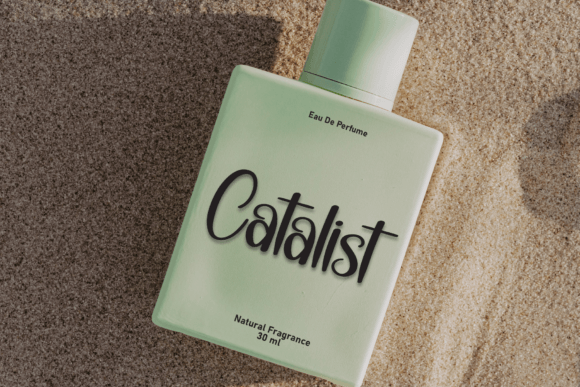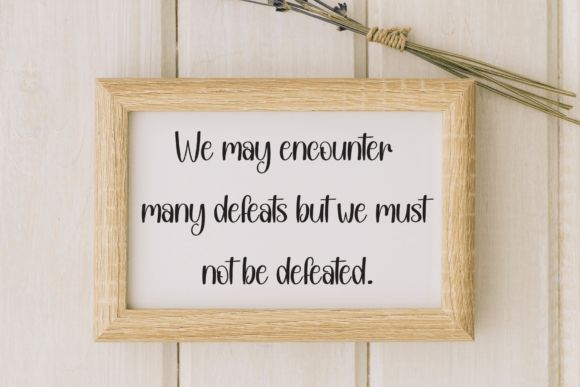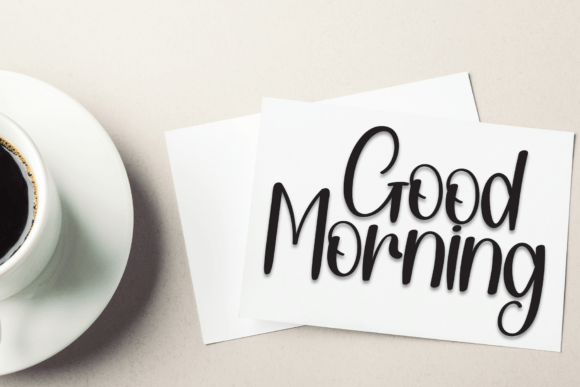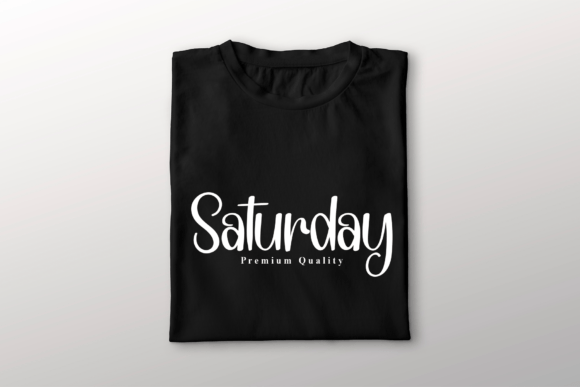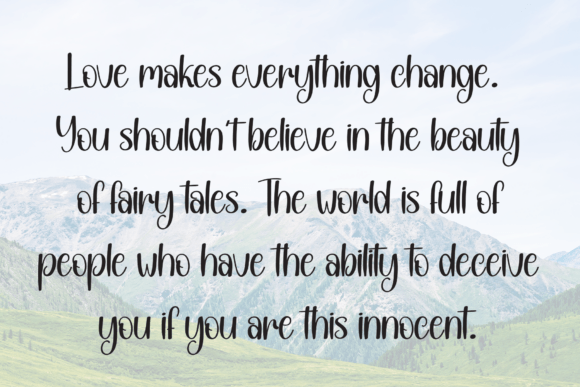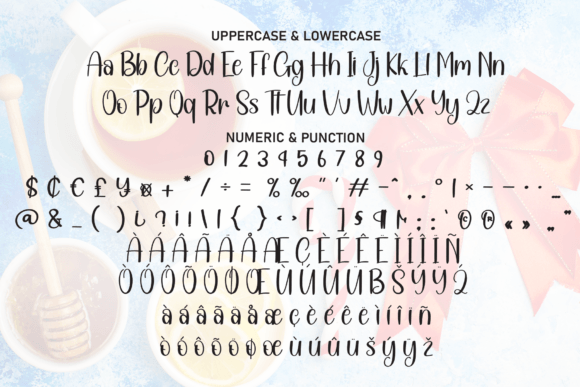
Introduction to Santa Honey Font Font
Fonts play a crucial role in design, and the Santa Honey Font font is a typeface that brings both character and versatility to any project. Whether you’re working on a branding project, a website, or a print design, the Santa Honey Font font offers a unique style that can elevate your work.
Welcome to the delightful charm of the handwritten display font that embodies joy and friendliness in every curve.
This design-artisan showpiece will sprinkle a bit of fun and sweetness into a multitude of creative projects Envision your wedding invitations revealing a dash of whimsy and romance, your cards displaying an extra squeeze of affection, or any design that yearns to touch hearts with a carefree bounce.
Key Features of Santa Honey Font Font
Why Choose Santa Honey Font Font?
The Santa Honey Font font is more than just a typeface – it’s a design tool that helps you communicate your message with style and clarity. Its unique character set and versatile design make it suitable for a wide range of applications, from elegant invitations to bold headlines.
With its carefully crafted letterforms and balanced proportions, the Santa Honey Font font ensures readability and visual appeal across all mediums.
What makes Santa Honey Font font special?
The Santa Honey Font font stands out with its unique design, exceptional readability, and versatility across various design applications.